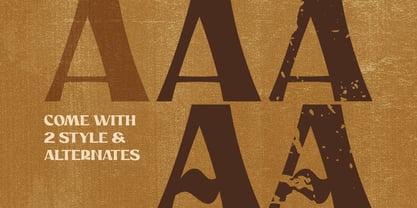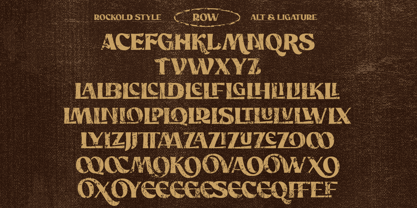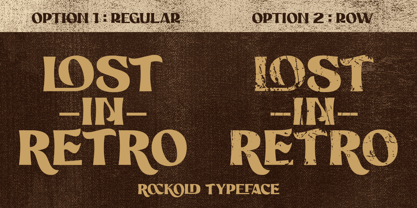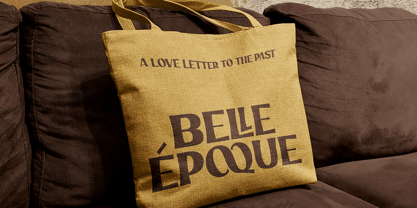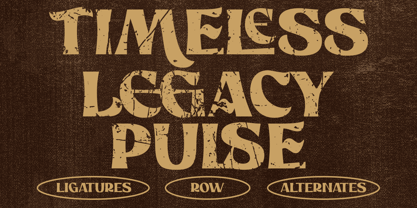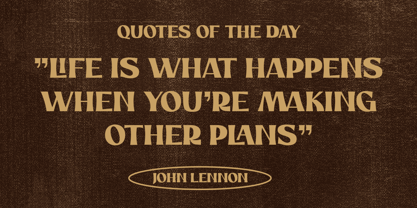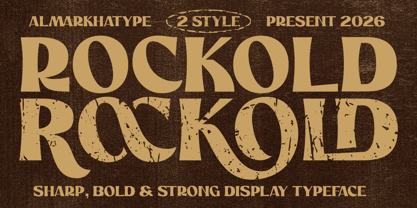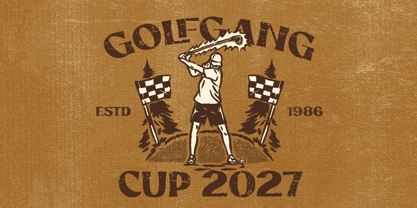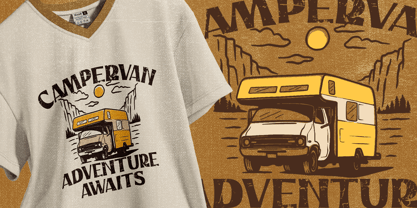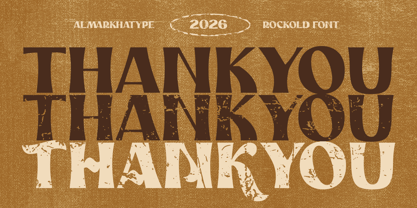
Rockold
by Almarkha Type
The Rockold Font Family was designed by Abdul Malik Wisnu and published by Almarkha Type. Rockold contains 2 styles and family package options. More about this family
Introducing Rockold, a sharp, bold, and strong display typeface designed to deliver a powerful vintage and rugged impression. Inspired by classic western, retro signage, and distressed typography, this font brings a tough and authentic character to your designs. Rockold comes with two styles, combining clean bold shapes and rough textured details, giving you the flexibility to create both solid and grunge looks. Perfect for projects that need a strong visual impact and timeless appeal. Ideal for logos, branding, posters, packaging, apparel design, labels, signage, badges, and vintage-themed creative works.